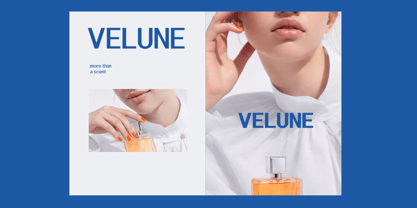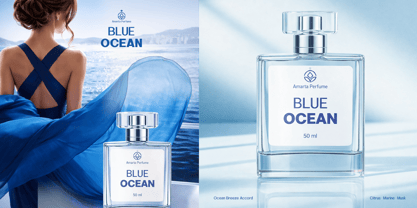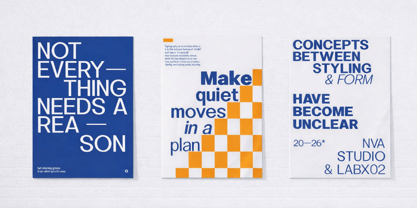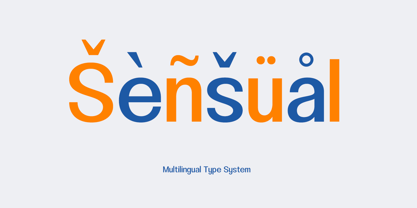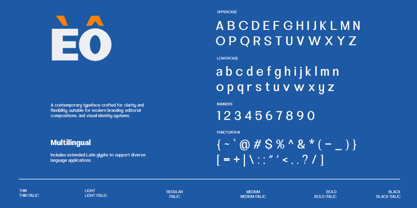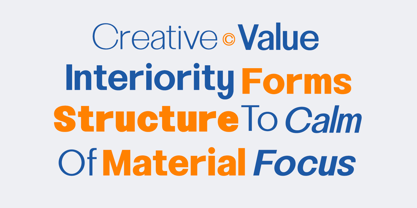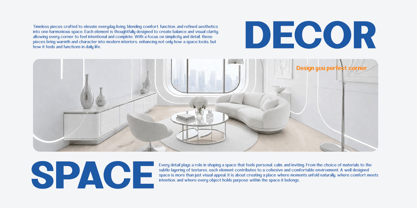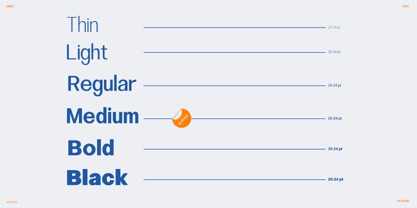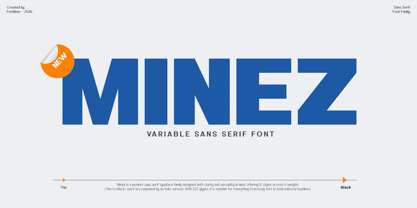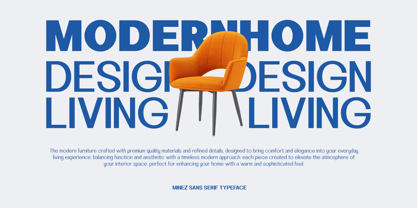
Minez
by Font Liner
The Minez Font Family was designed by Ghina Luthfiarieska and published by Font Liner. Minez contains 10 styles and family package options. More about this family
Minez is a modern sans serif typeface designed with clarity, precision, and versatility at its core. Built as a variable font family, it offers a seamless range of weights from thin to black, allowing designers to create dynamic and consistent typography across a wide variety of projects. Its clean geometric structure and balanced proportions make it highly readable while maintaining a strong visual identity.
Crafted for contemporary design needs, Minez excels in branding, editorial layouts, UI/UX interfaces, advertising, and digital products. Whether used for bold headlines, minimalist posters, product packaging, or modern web design, this typeface adapts effortlessly to both expressive and functional roles. The subtle details and smooth curves give it a refined yet approachable character, perfect for modern brands seeking a clean and professional aesthetic.
With multilingual support and a complete set of uppercase, lowercase, numerals, and punctuation, Minez provides everything you need for global design applications. Its flexibility makes it ideal for designers looking to build cohesive visual systems, from corporate identity to creative campaigns. Minez is not just a font—it’s a powerful design tool for creating modern, structured, and impactful visual communication.
Designers: Ghina Luthfiarieska
Foundry: Font Liner